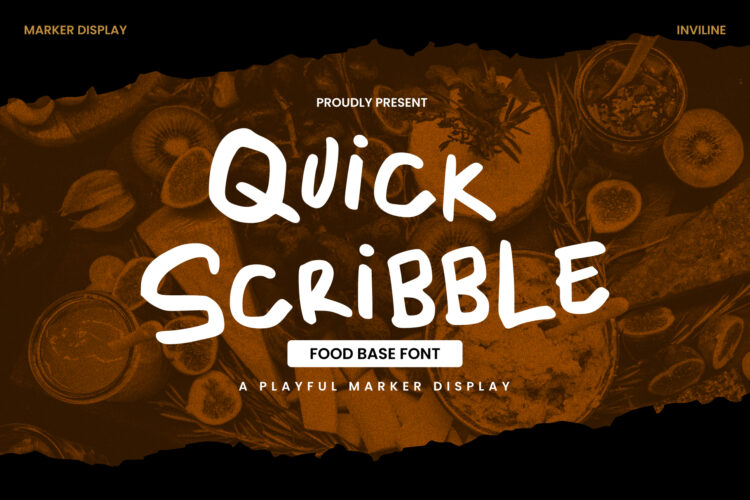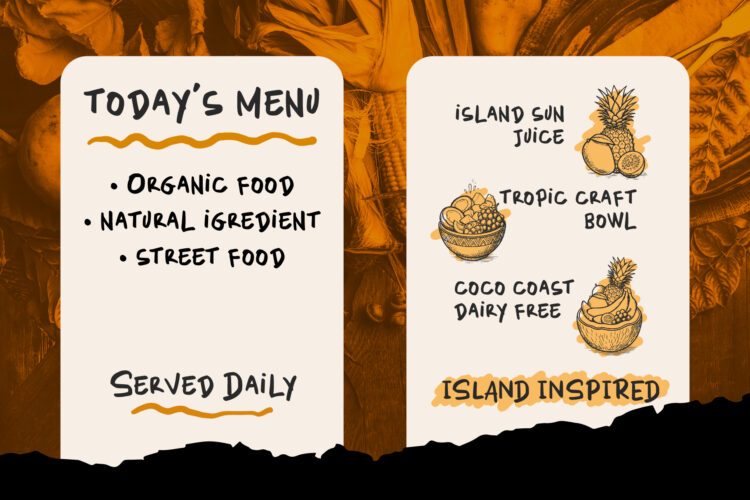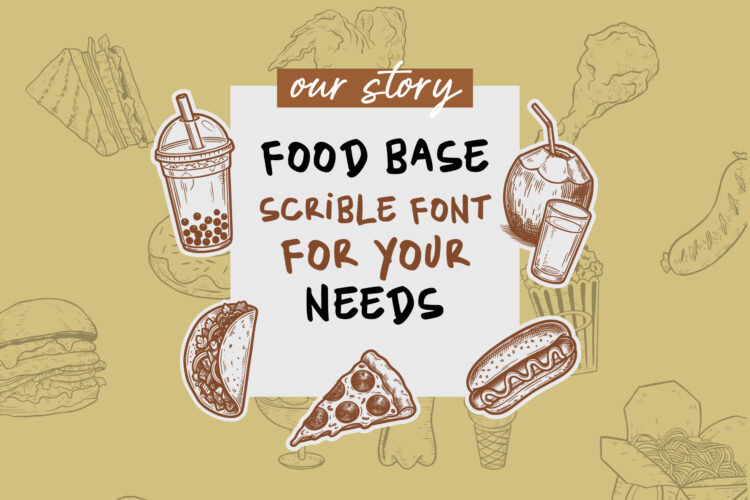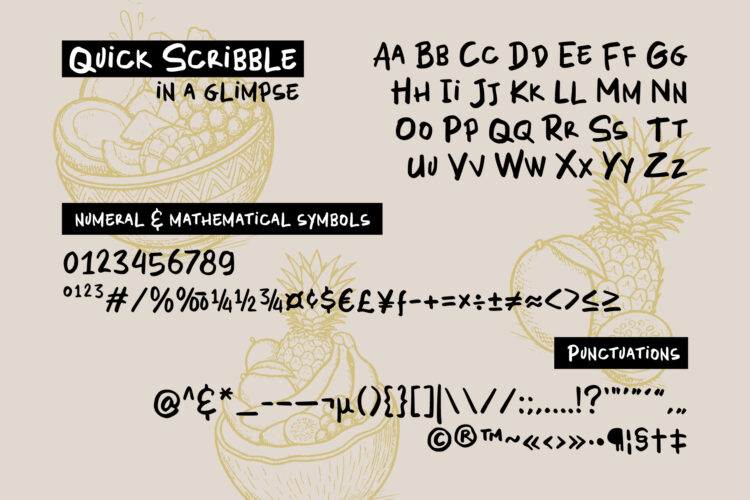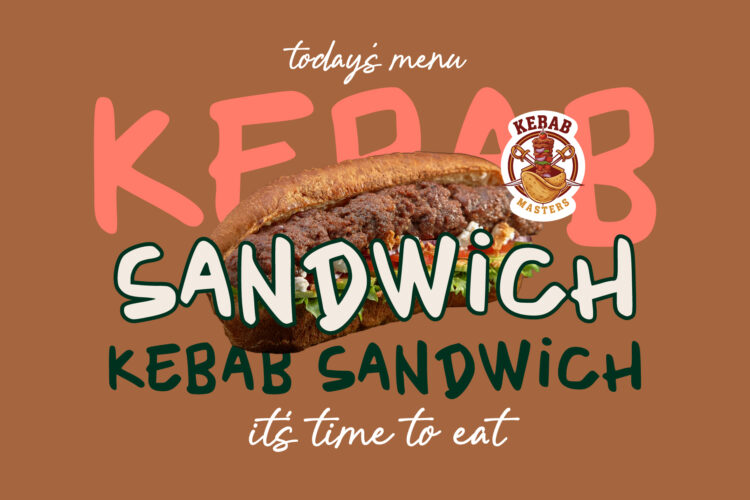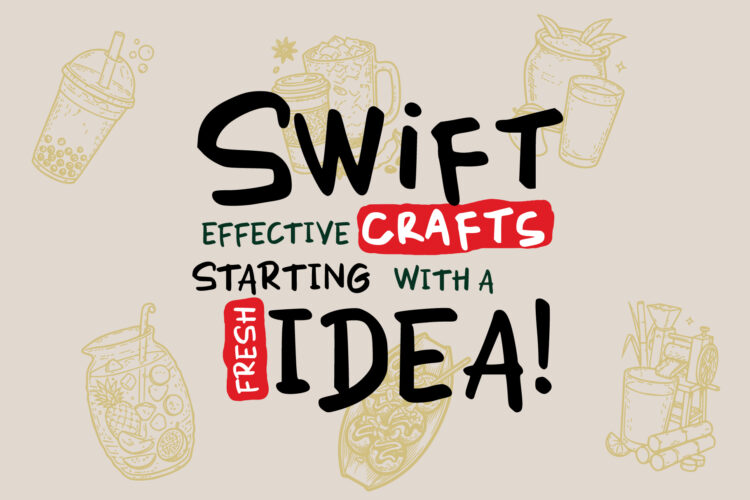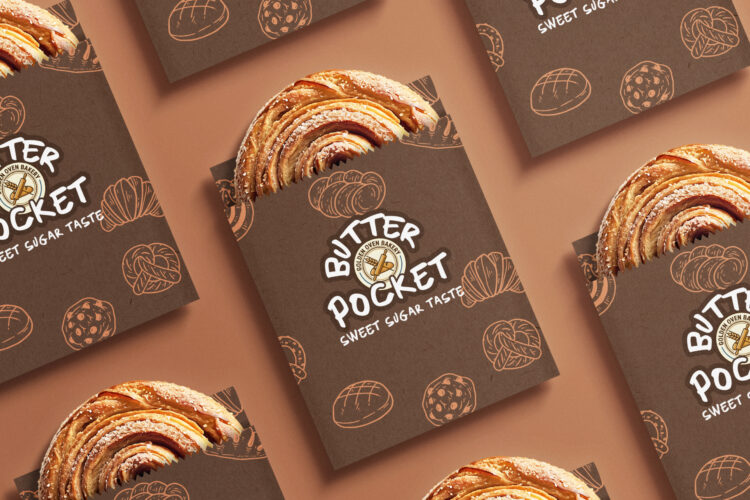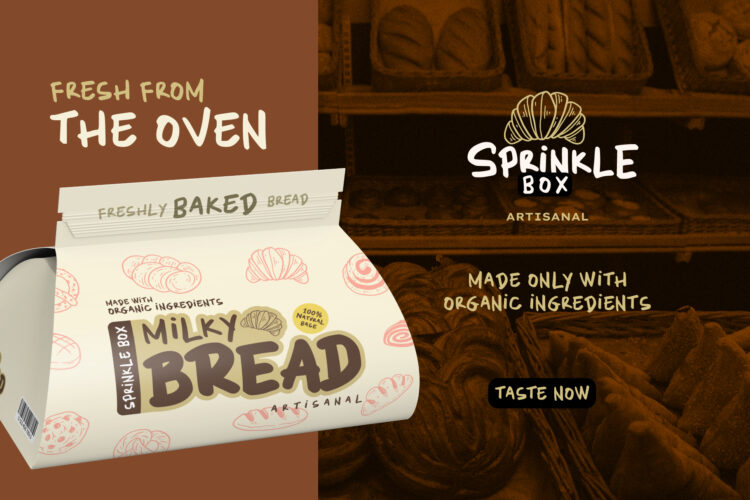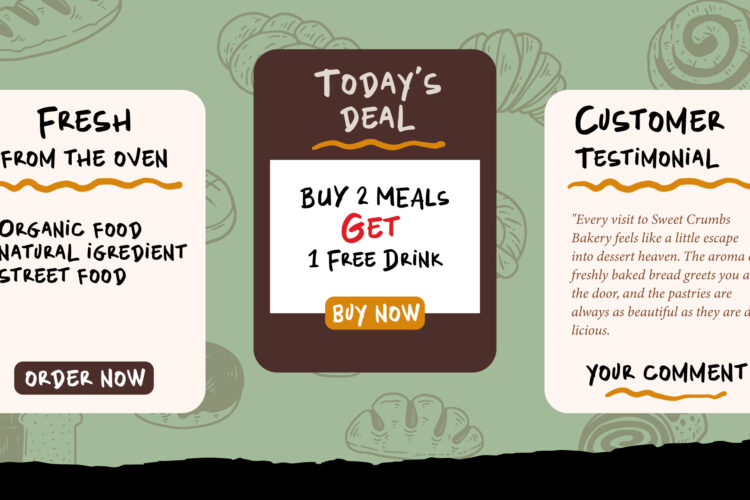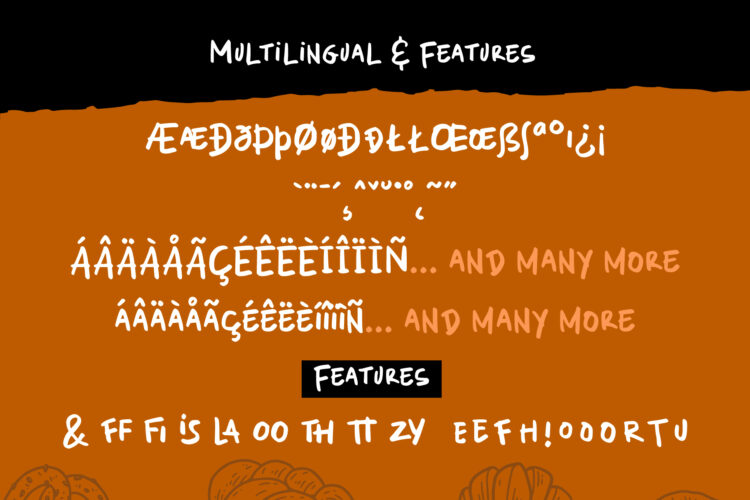
A warm, hand-drawn marker display font built for food brands, menus, and appetite-driven design. Chunky, playful letterforms with multilingual support and OpenType alternates – the perfect typeface for anything delicious.
Quick Scribble is a playful marker display typeface designed with the food and beverage world in mind. Inspired by the energy of street food stalls, artisan café chalkboards, and casual restaurant menus, its chunky hand-drawn letterforms carry warmth, appetite, and an approachable personality at any size.
Whether you’re branding a bakery, designing a food delivery app, building a restaurant identity, or creating packaging for an organic food line, Quick Scribble makes every word feel fresh, handcrafted, and inviting.
- Full A–Z uppercase & lowercase
- Numerals 0–9
- Extended numeral & mathematical symbols (fractions, currency, math operators)
- Extended punctuation set
- OpenType ligatures: ff, fi, ls, la, oo, th, tt, zy, eef, ooo, rtu & more
- Multilingual accented character support (Æ, Ð, Ø, Œ, ß, Ł + full accent set)
Best for:
- Restaurant & café menus
- Food packaging & product labels
- Street food & food truck branding
- Bakery & artisan food identity
- Social media food content & stories
- Food delivery app UI & digital menus
- Recipe cards & food editorial
- Canva & DIY food brand projects